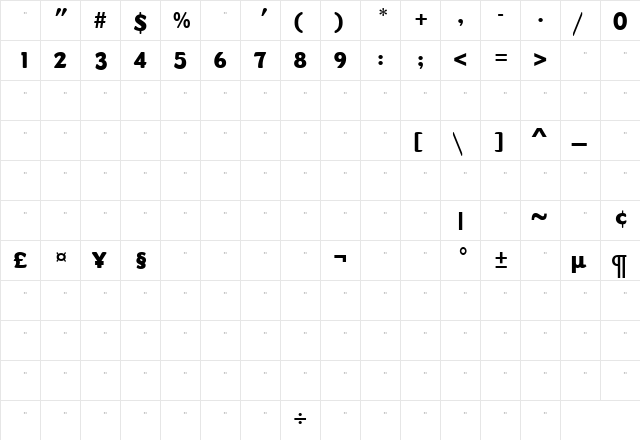
DundeeExBoldTab Regular
Design Context for DundeeExBoldTab Typeface
DundeeExBoldTab is a composed and adaptable typeface that performs quietly and consistently across a wide range of design contexts. The heavy weight commands attention and anchors typographic hierarchies.